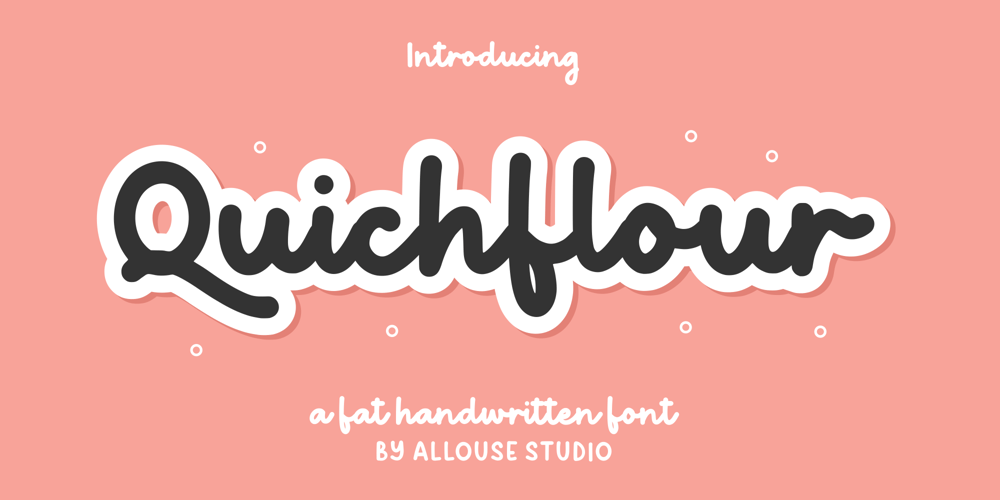
Quichflour Font Family was designed by Fachrizal Yusuf and published by Allouse Studio. Quichflour contains 1 styles and family package options. Proudly Presenting, Quichflour a Fat Handwritten Font.Quichflour is perfect for any titles, logo product packaging, branding project, megazine, social media, wedding, or just used to express words above the background.Quichflour also come with Multi-Lingual Support.Enjoy the font, feel free to comment or feedback, send me PM or email. Thank You!